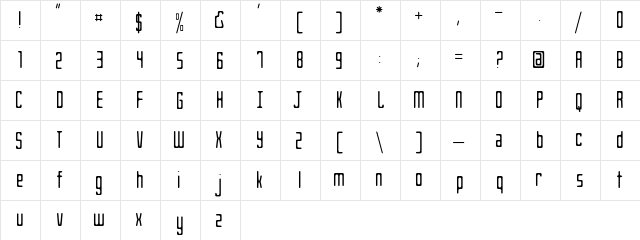
Gangly Regular
Design Context for Gangly Typeface
Gangly offers clean, dependable letterforms without strong stylistic allegiance, making it a practical choice for designers who need flexibility.